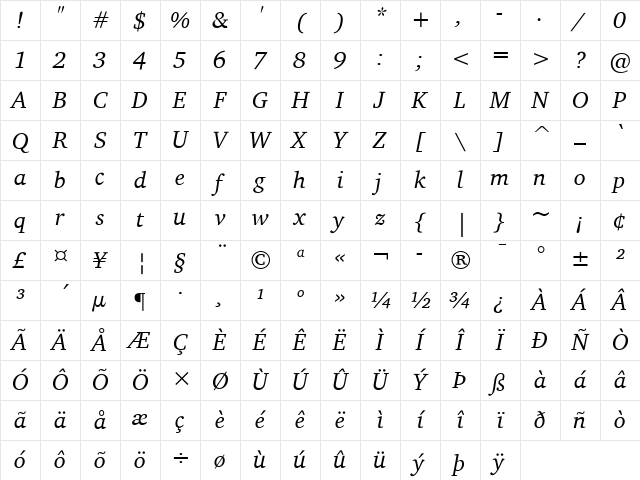
Charter ITC Regular Italic
Style: Regular Italic
Foundry: by URW
Charter ITC Family
Charter ITC Regular Italic
Design Context for Charter ITC
Charter ITC is a composed and adaptable typeface that performs quietly and consistently across a wide range of design contexts. The slanted form adds forward momentum and visual energy.
Pro Tip: Use Charter ITC for emphasis, pull quotes, and subheadings where its slanted energy can add rhythm to the layout.